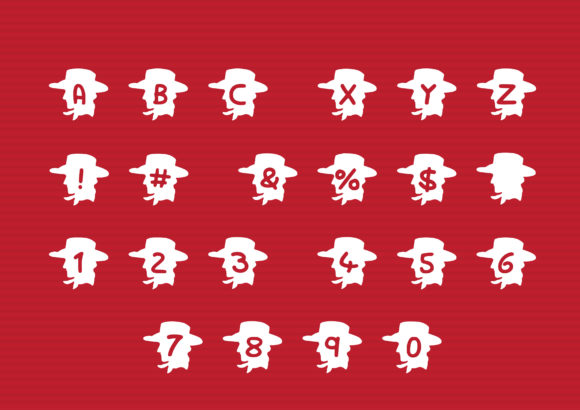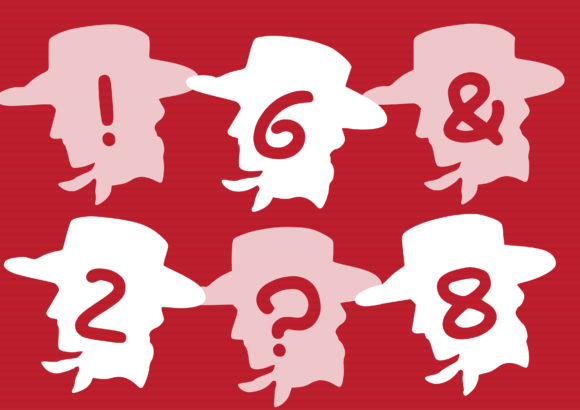
Introduction to Play Cowboy Font
Play Cowboy is a cool looking and interesting decorative font, featuring a cowboy on each character.
No matter the topic, this font will be an incredible asset to your fontsโ€™ library, as it has the potential to elevate any creation .
Key Features of Play Cowboy Font
Why Choose Play Cowboy Font?
Play Cowboy Font offers exceptional quality and versatility, making it a valuable addition to your design toolkit. Whether you’re creating for personal projects or commercial use, Play Cowboy Font delivers professional results.